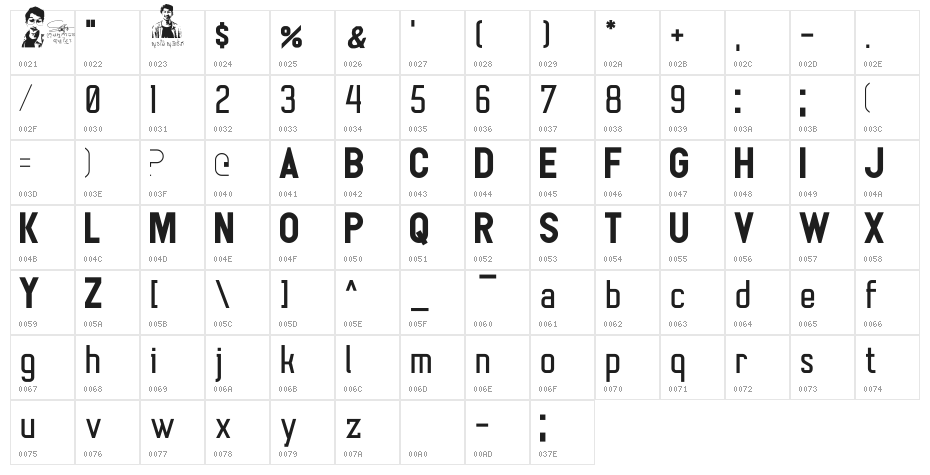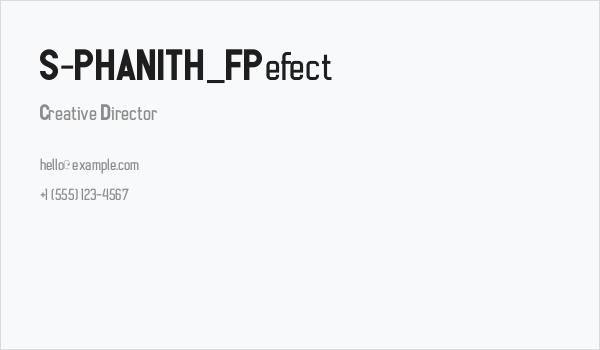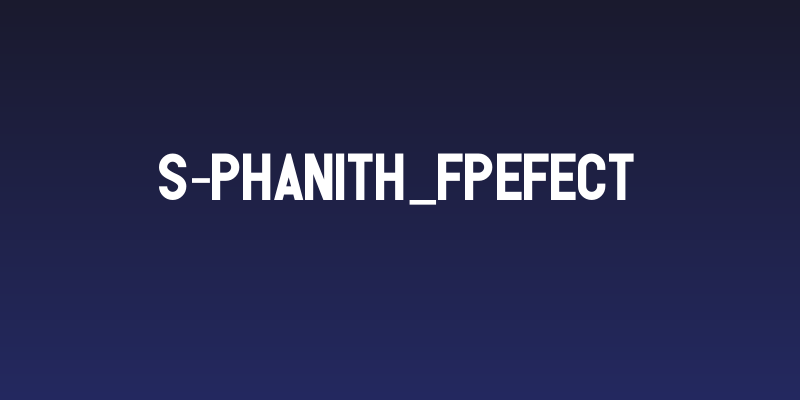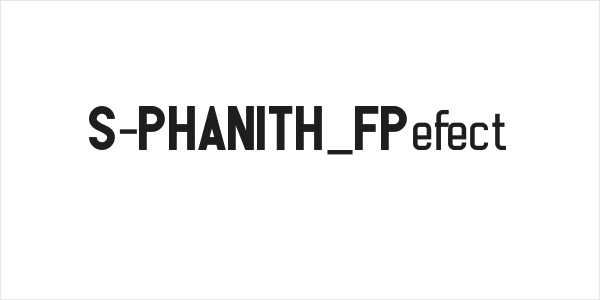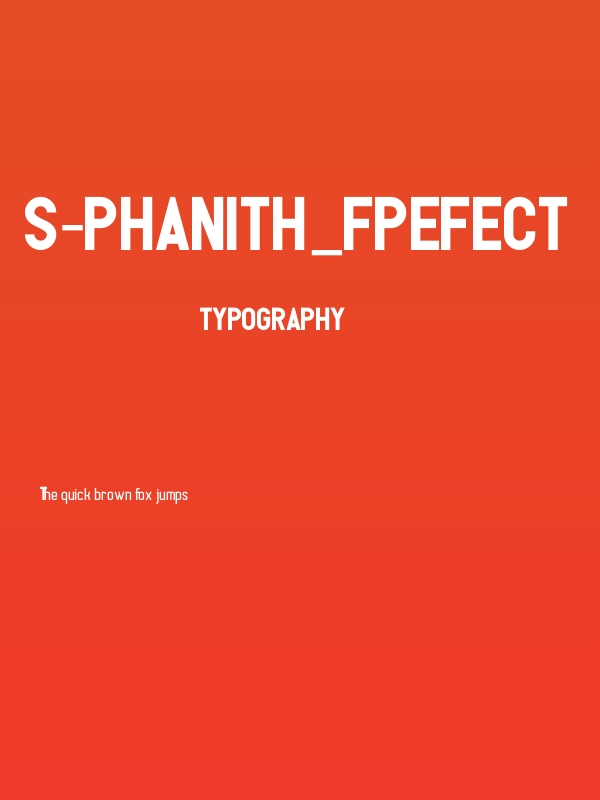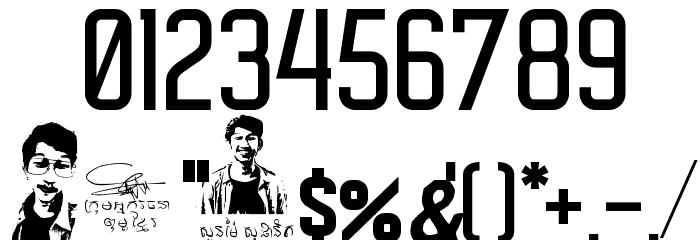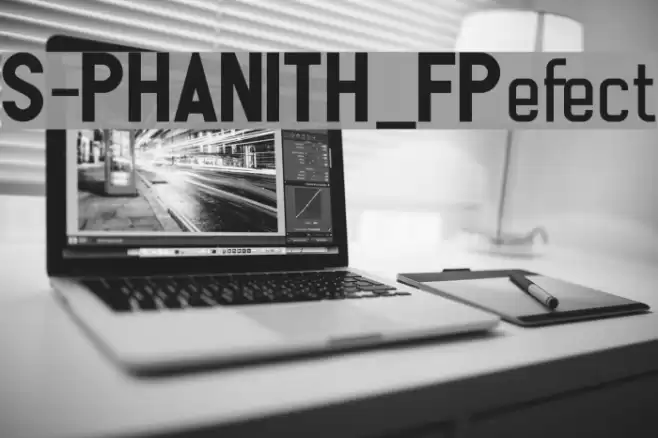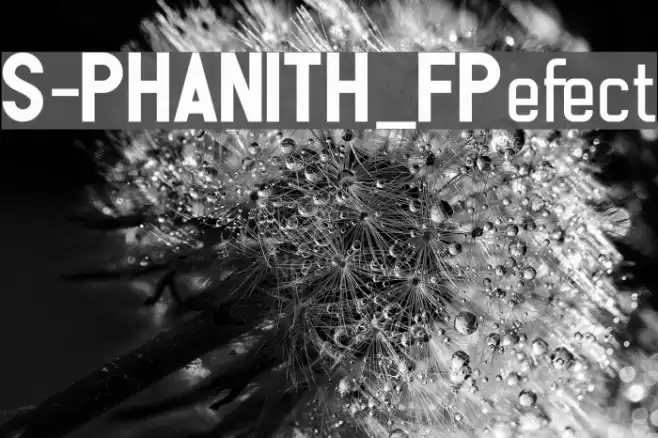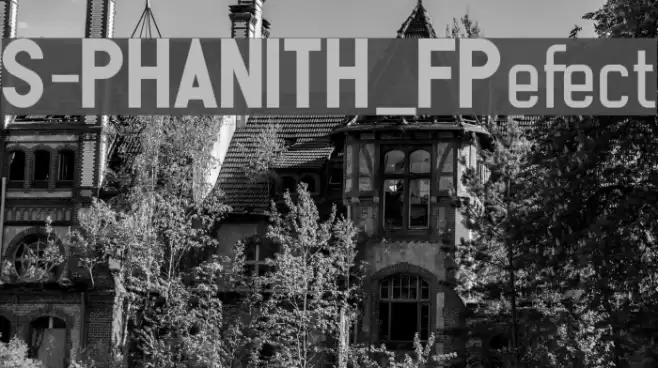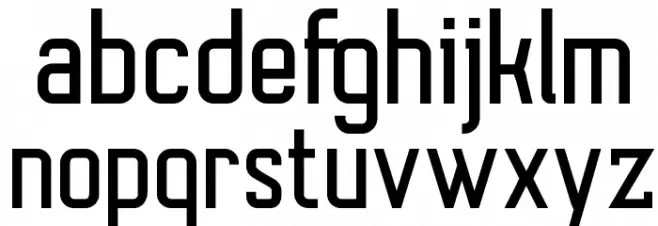
S-PHANITH_FPefect Font
✎ Sans Serif
S-PHANITH_FPefect Description
This font features a modern and clean sans-serif design with a geometric structure. The uppercase letters are bold and assertive, while the lowercase letters maintain a consistent height and width, offering a balanced appearance. The numerals are clear and easy to read, making them suitable for a variety of applications. Special characters are well-defined, adding versatility to the font. The overall style is contemporary, with a focus on readability and simplicity, making it ideal for digital and print media.
| Use Case | Headlines, Logos, Digital Interfaces |
| Proposed Projects | Ideal for branding, digital interfaces, signage, and editorial design. |